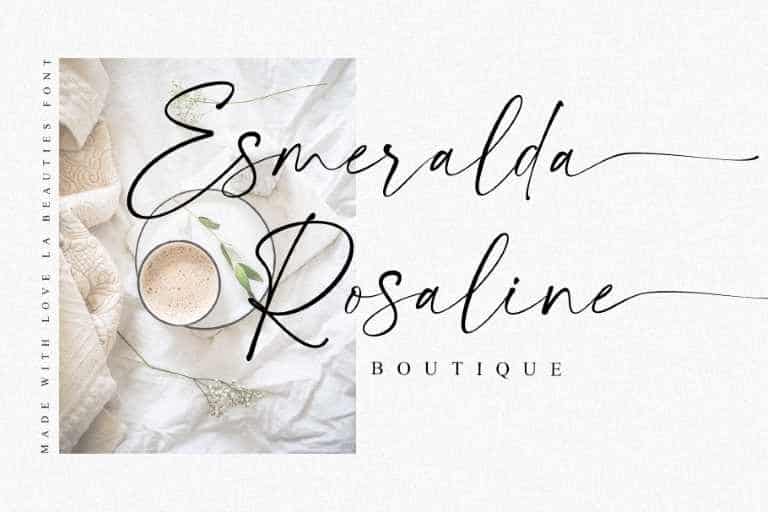
La Beauties Font
La Beauties Script Font with elegant and classy style looks very interesting for loads of different projects and promotions. Made from font designer named vanpatelona. It’s an original, casual and modern handwritten font that comes with a distinctive chic character that adds unique value to the font, perfect for branding, wedding invites cards, and more.
La Beauties includes full set of uppercase and lowercase letters, numeral, punctuations and ligatures. The lowercase letters completed with beautiful begining and ending swashes.